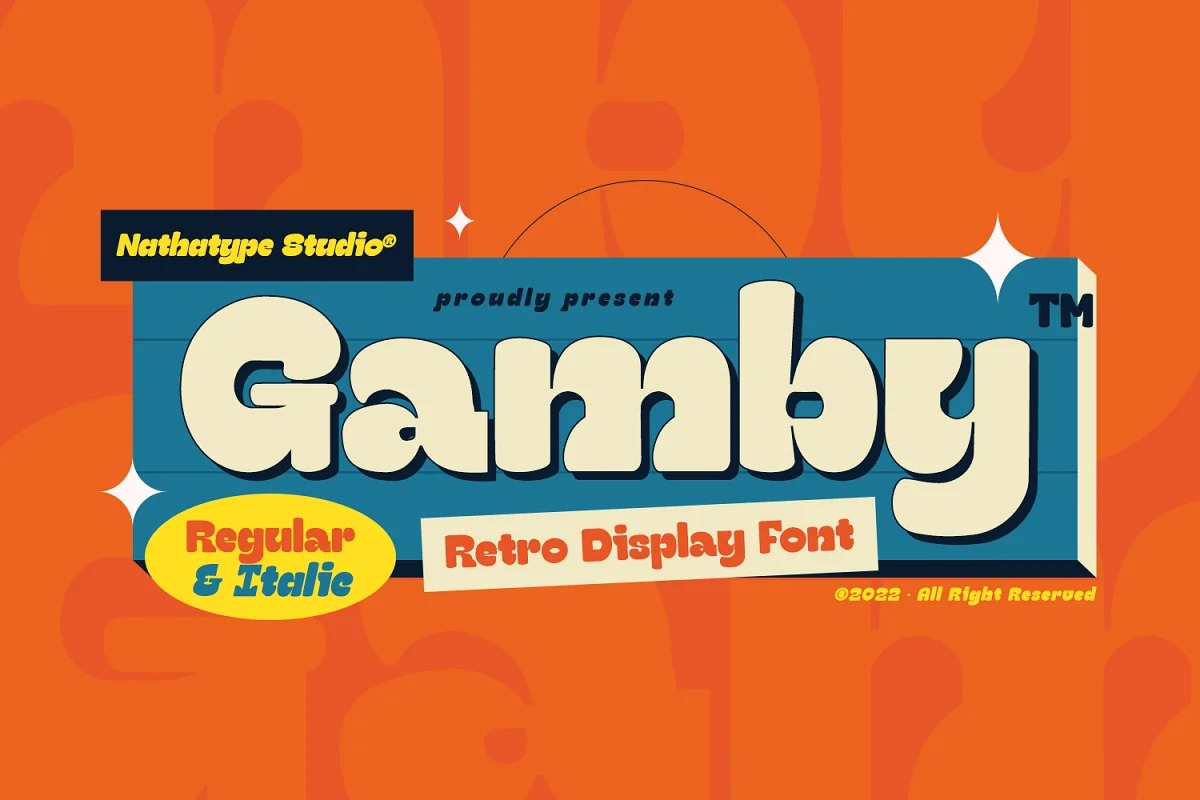
Gamby Serif Font is a bold serif typeface inspired by Serif and Gothic font style with a touch of vintage and grunge effect. Its main character is the round, thick letters in thin outlines. Gamby provides two versions, regular and italic to use for bigger-sized texts to be legible. Gamby fits for any design projects, such as posters, logos, book covers, headings, printed products, merchandise, social media, etc.